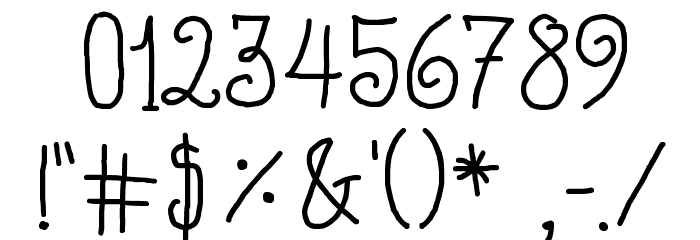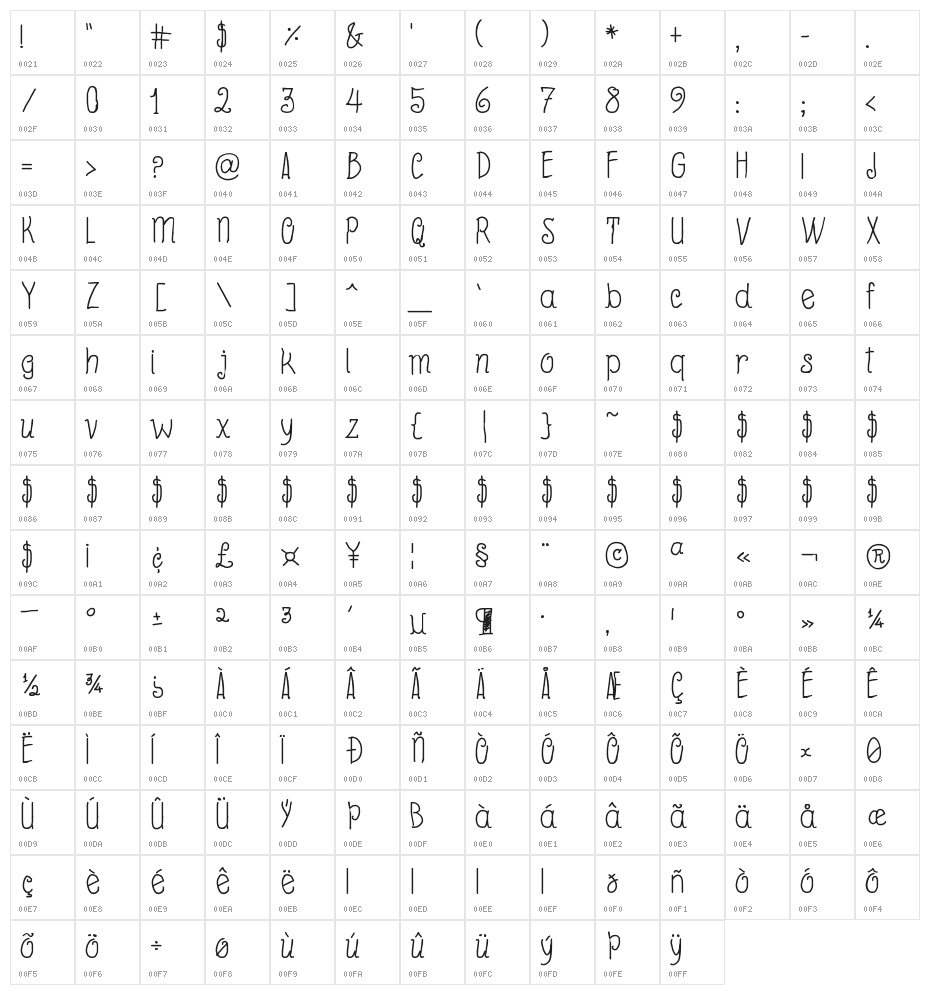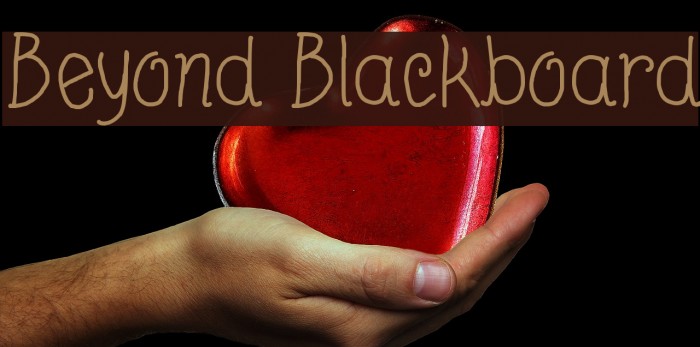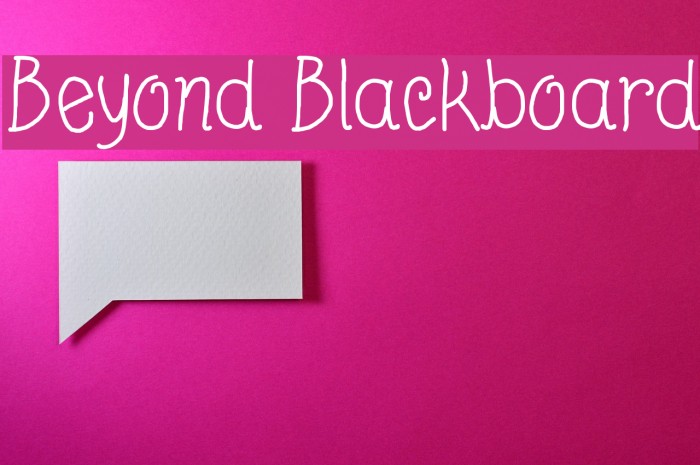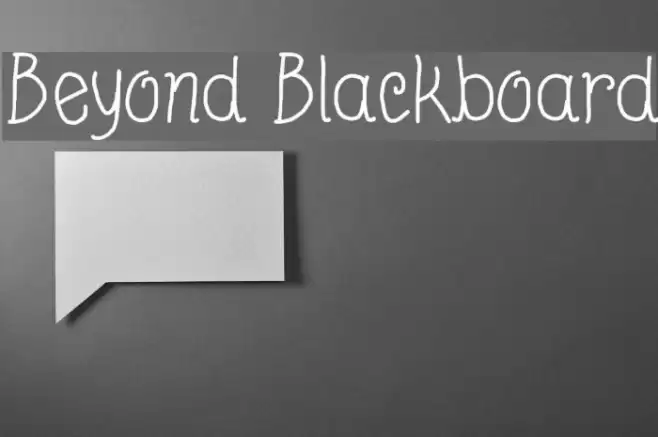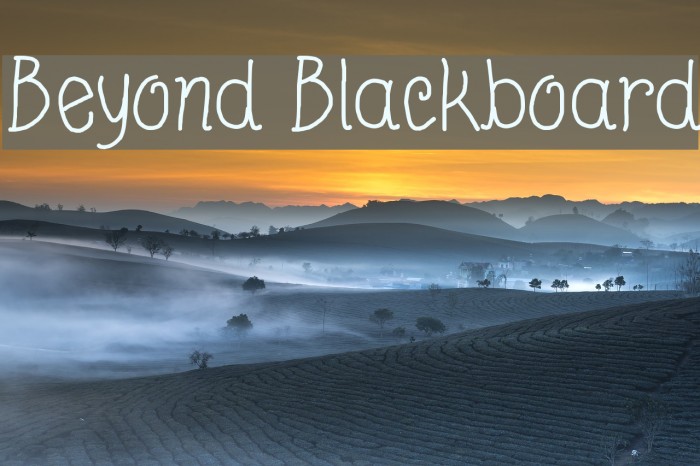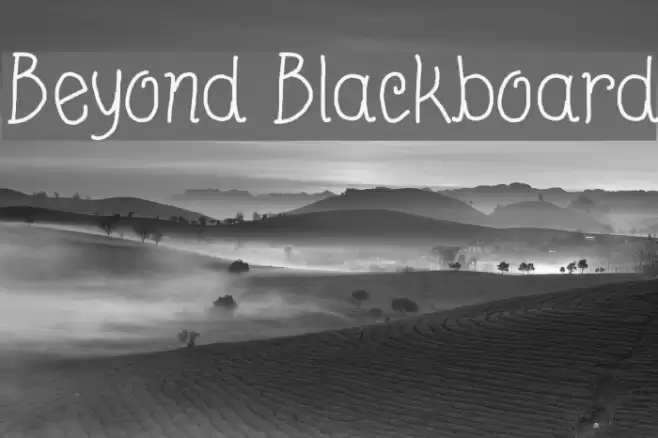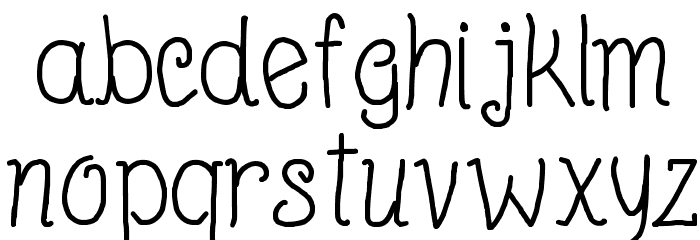
Beyond Blackboard Font
Beyond Blackboard Description
This playful and whimsical font features a handwritten style that exudes a casual and friendly vibe. The characters are slightly irregular, adding a touch of authenticity and charm. The uppercase and lowercase letters maintain a consistent flow, with rounded edges and a slight tilt that enhances its informal appearance. The numerals and special characters are crafted with the same playful spirit, making them perfect for creative projects. The font's overall design is approachable and versatile, suitable for a variety of uses where a personal touch is desired.
| Proposed Projects | Ideal for children's books, greeting cards, playful branding, and DIY projects. |